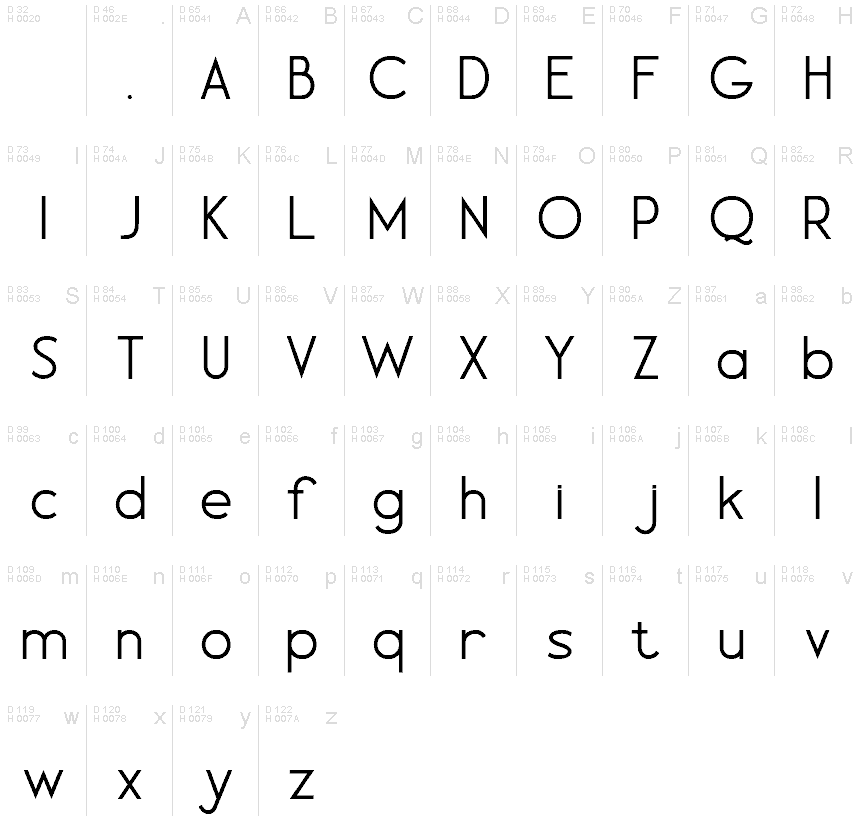
Faston Regular
Faston font by Achmad Yani of Flawless and Co. is a simple, clean, light, modern sans serif font with strong geometric influences. Its uniqueness has a contemporary touch that makes it extremely flattering in its use. A light visual form allows for extraordinary readable typographic applications and appearances in headlines.
The typeface will equally do well across logos, headlines, posters, banners, webpages, magazines, newspapers’ front pages or columns, movie cover titles or even more colored visual scenarios such as reports and documents’ covers. Enjoy using it wherever; it is indeed a free font in itself!